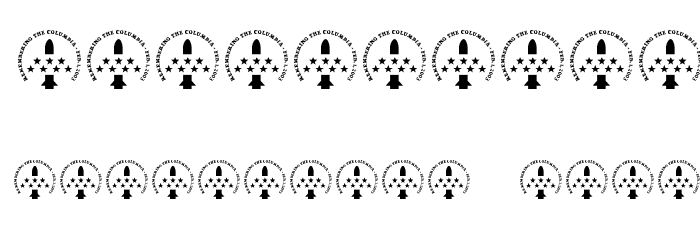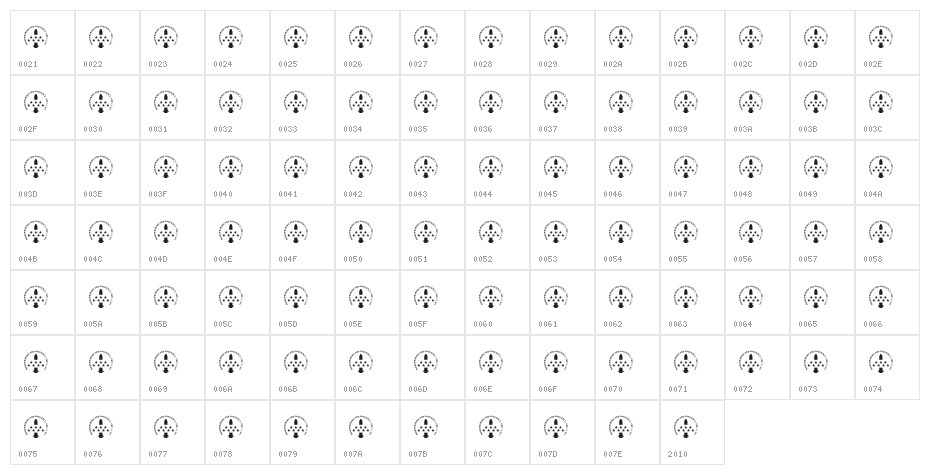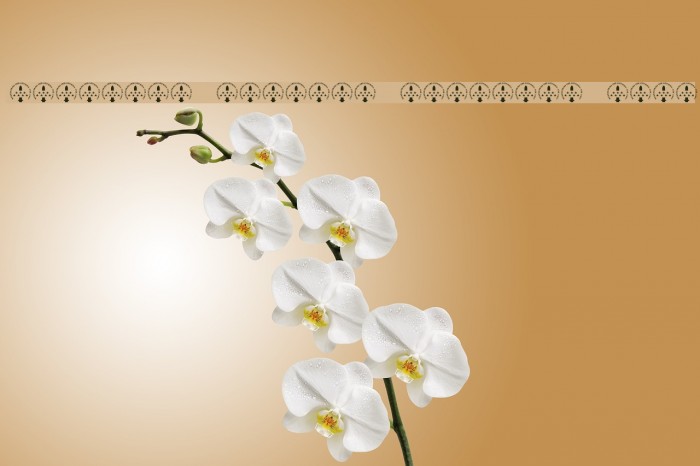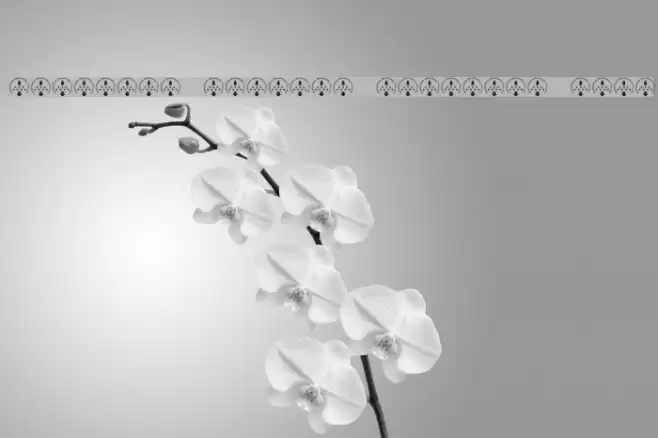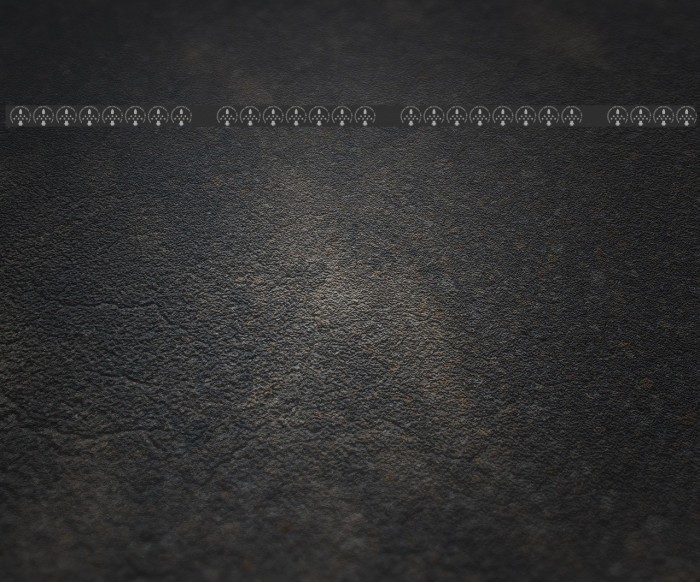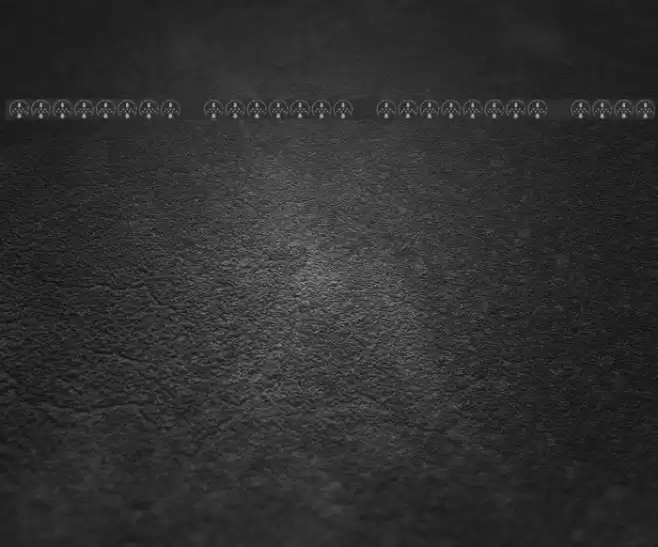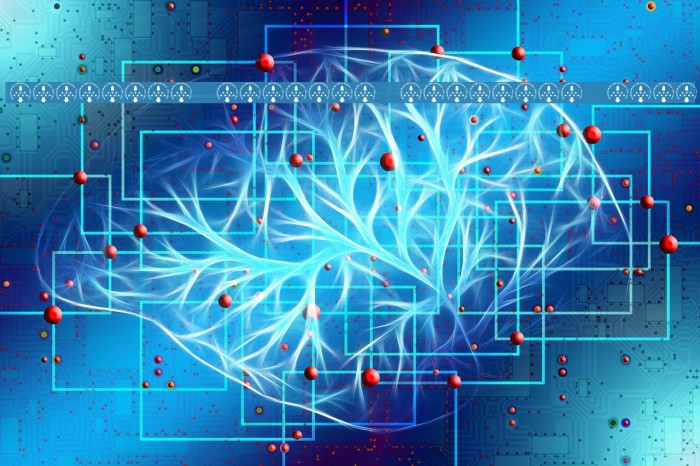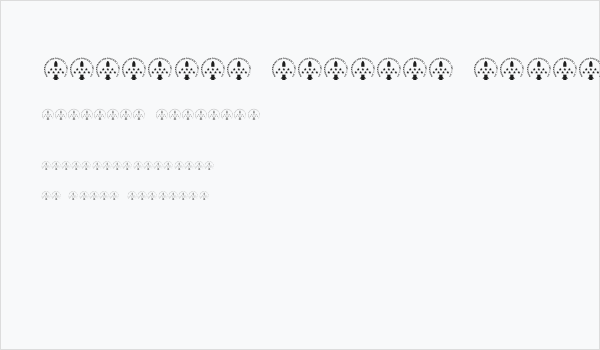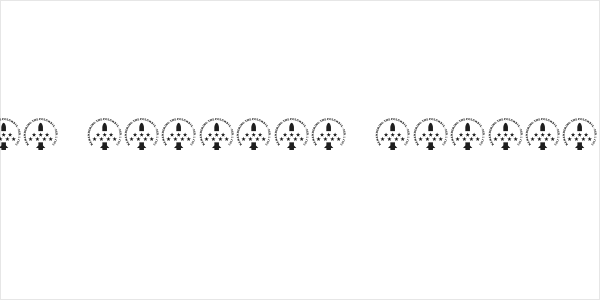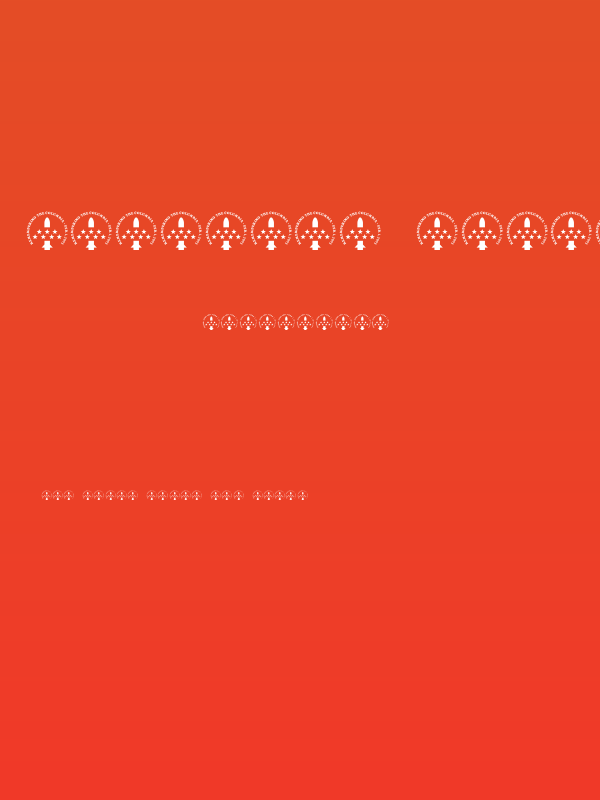
Columbia Shuttle Memorial Font Font
Columbia Shuttle Memorial Font Description
This is a decorative, commemorative design featuring a stylized shuttle silhouette, surrounded by stars and arched text. The elements are arranged in a circular emblem style, with bold, geometric shapes and evenly spaced, uppercase sans-serif lettering.
| Overall Style | Decorative, Memorial, Geometric |
| Use Case | Logos, Posters, Badges, Emblems |
| Proposed Projects | Memorial plaques, commemorative posters, event branding, themed merchandise. |